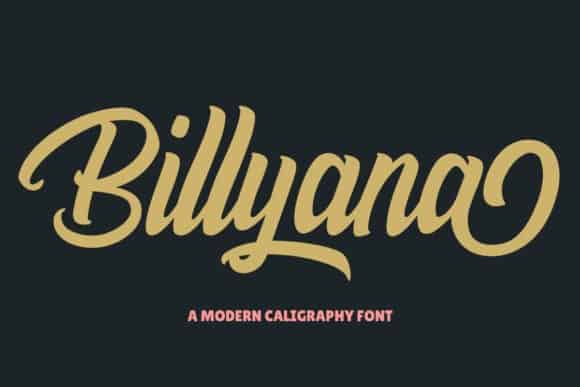
Billyana Script Font
Thanks for checking out Billyana Font is a bold script typeface with typical vintage style, This font always gives an extraordinary touch for you.